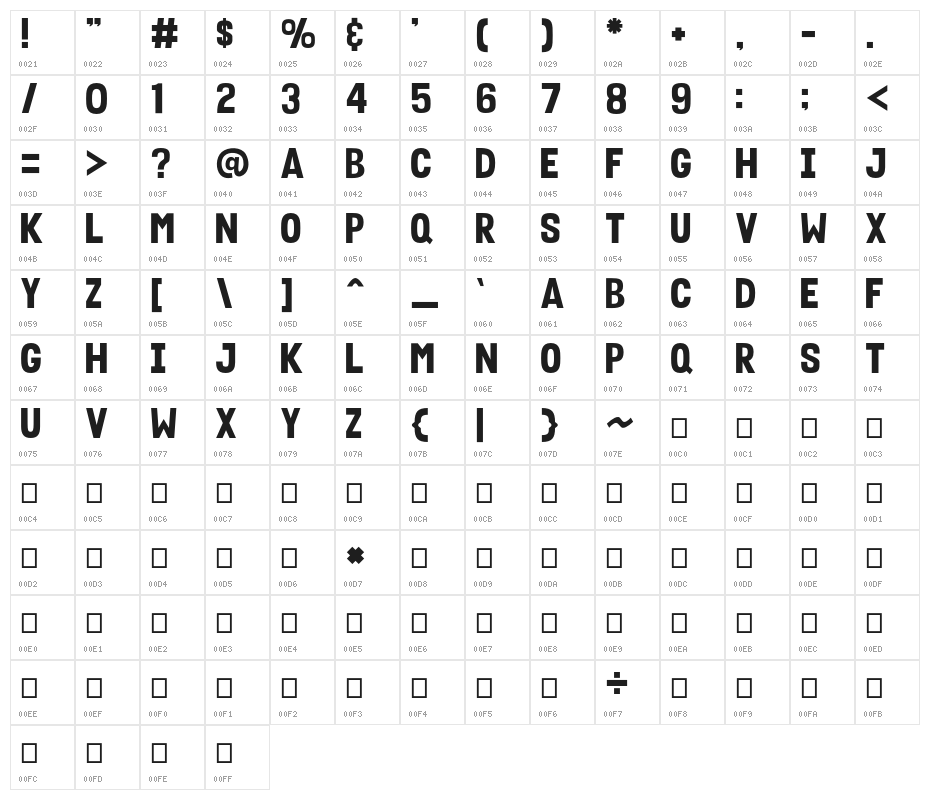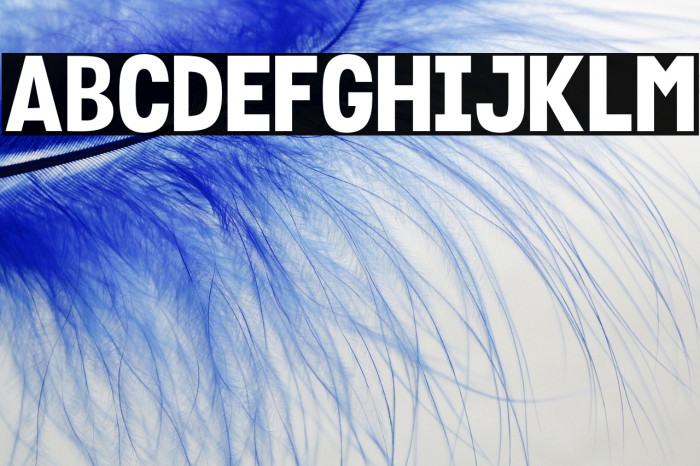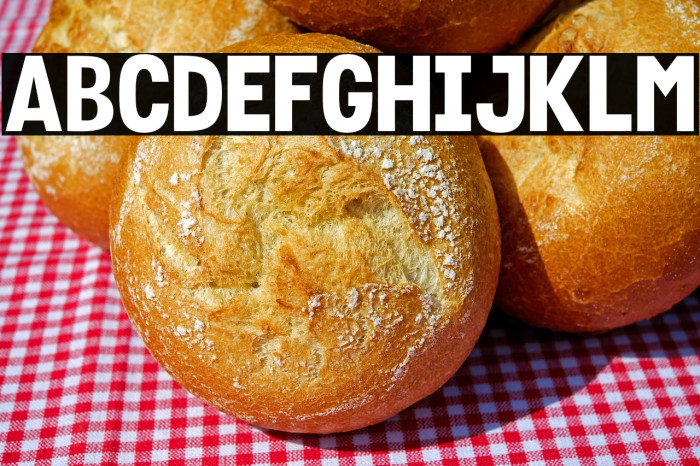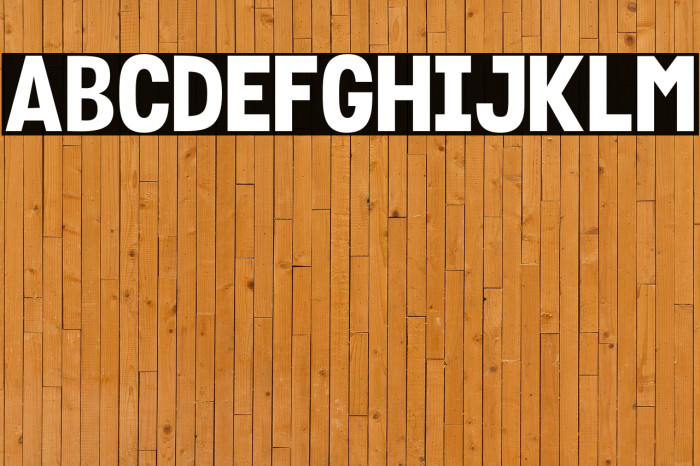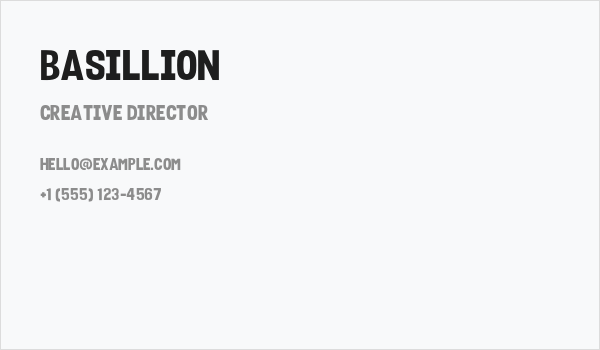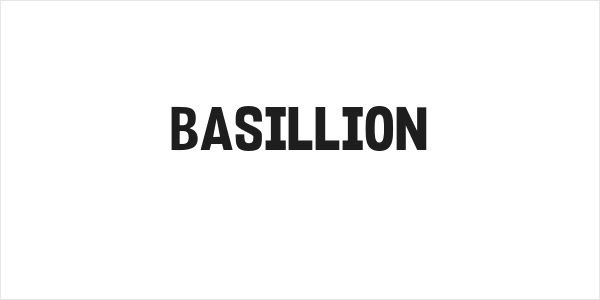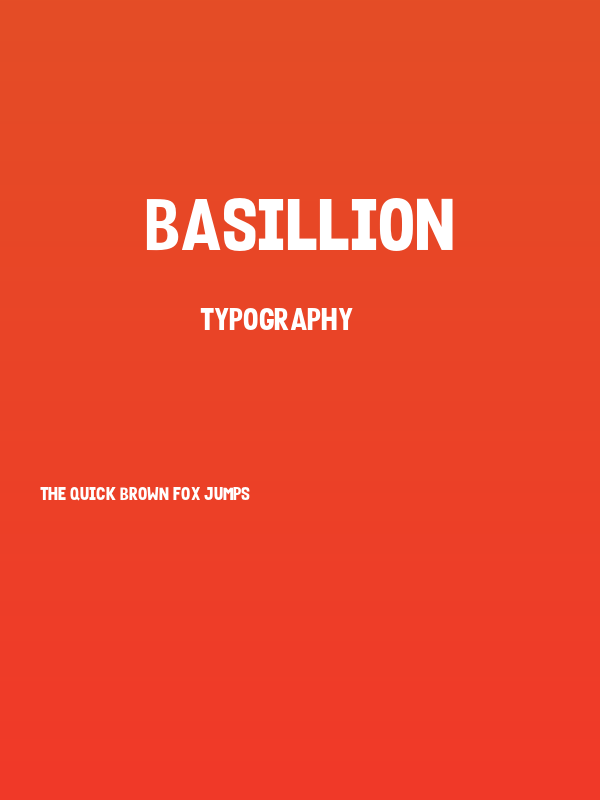
Basillion Font
Basillion Description
This font features bold, uppercase letters with a strong geometric structure, making it highly legible and impactful. The characters are evenly spaced, providing a clean and organized appearance. The numbers and special characters maintain the same boldness, ensuring consistency across all elements. The overall design is modern and assertive, suitable for making statements in various design contexts. The font's robust and straightforward style makes it versatile for both digital and print media.
| Proposed Projects | Ideal for headlines, posters, branding, and advertising where a strong visual impact is needed. |